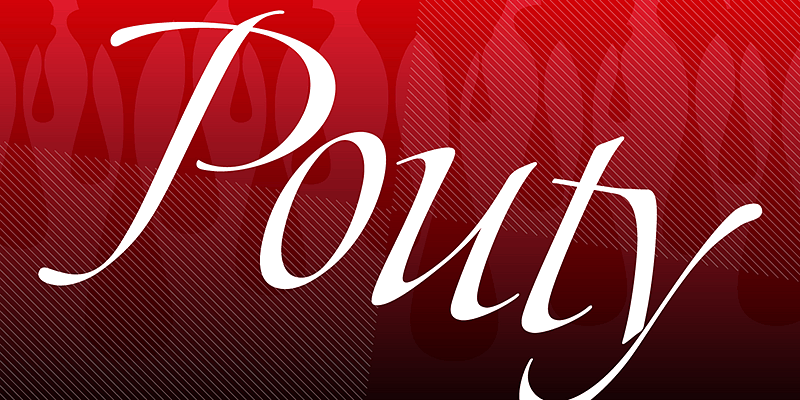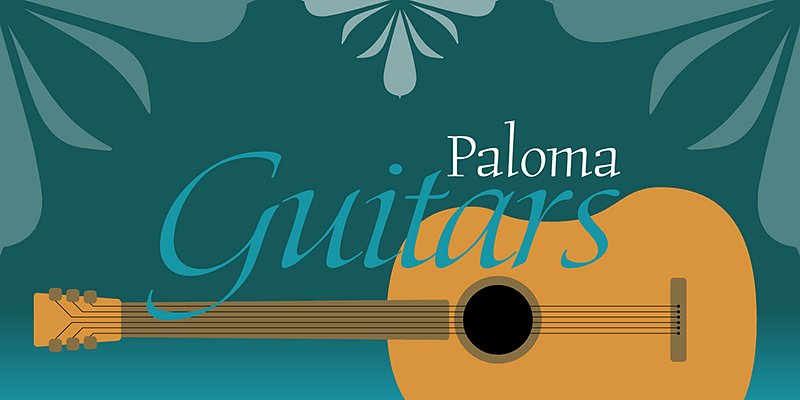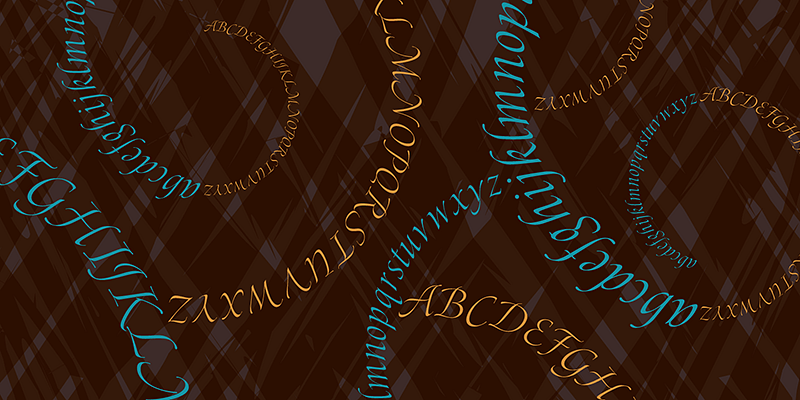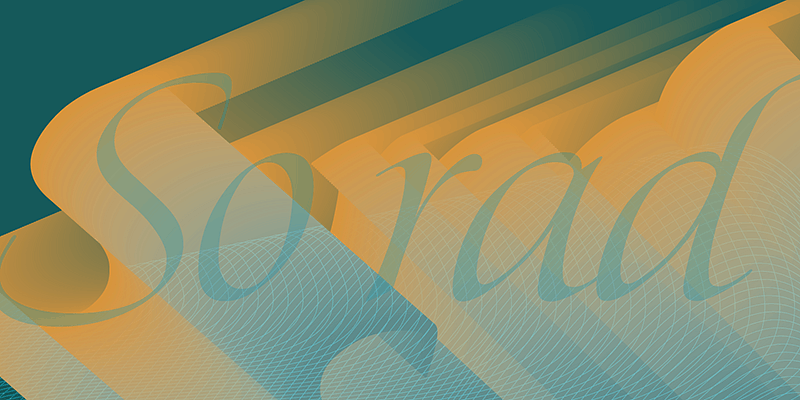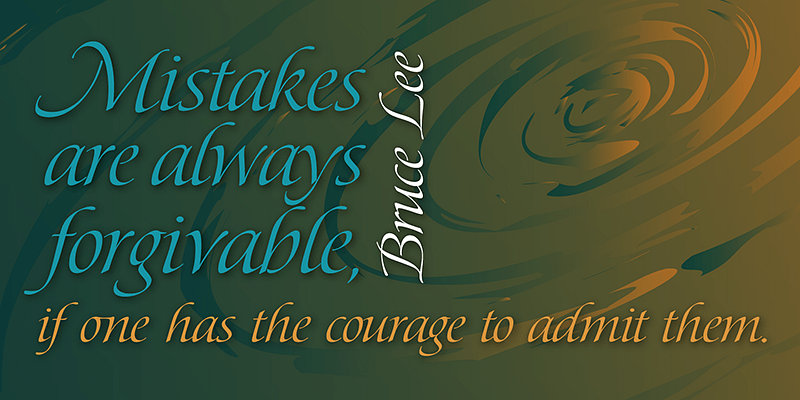
P22 Pouty Pro is a light contemporary italic, including a large set of ligatures and alternate characters, offering plenty of options for customization.